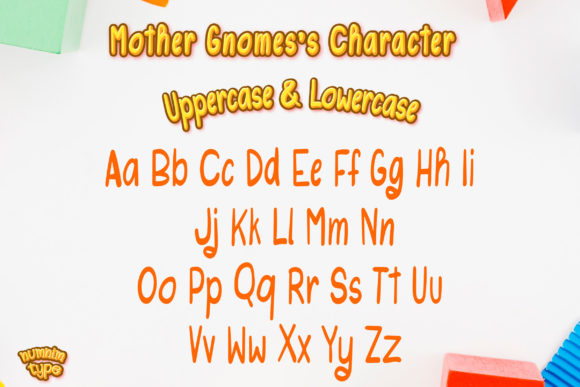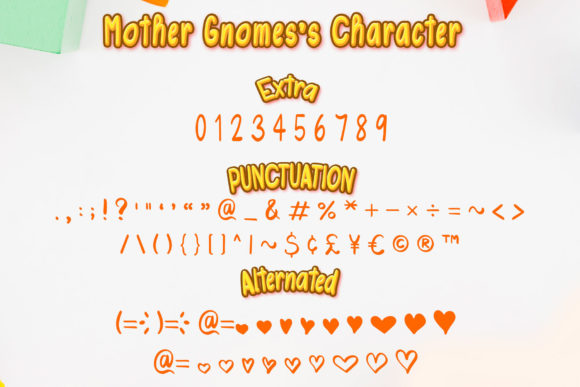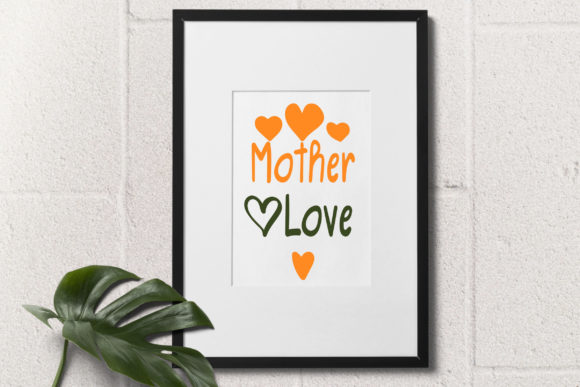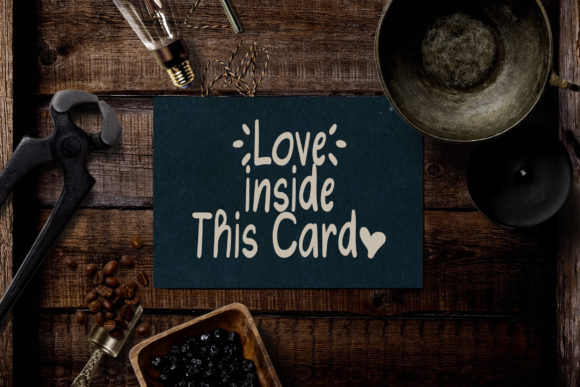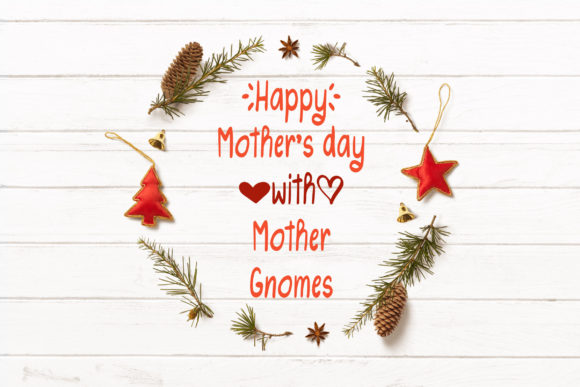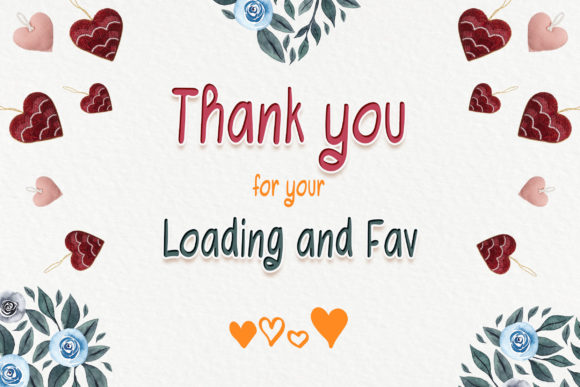
Introduction to Mother Gnomes Font
Who hasn’t had that moment when they stumble upon a design that just sparks their creativity? For me, it was the moment I laid eyes on the Mother Gnomes Font. Its playful, handwritten style and adorable doodle elements instantly captured my heart, and I knew I had to learn more about this delightful font.
Whether you’re a seasoned designer or just starting out, the Mother Gnomes Font is a valuable addition to your design arsenal. Its sweet, friendly style is sure to bring a smile to your face and inspire your next creative project.
Key Features of Mother Gnomes Font
- Designed with intricate details, featuring a whimsical and playful style reminiscent of forest dwellers.
- Perfect for use in various design contexts, including digital art, print materials, and web design.
- Features a unique and quirky character set, making it an excellent choice for designers seeking a distinctive look.
Honest Review: Mother Gnomes Font
I recently stumbled upon the Mother Gnomes Font while searching for a free design resource for my creative project. I was immediately drawn to its quirky, whimsical feel, perfect for adding a touch of personality to my design.
- ✨ The font’s high quality is evident in its crisp lines and smooth typography, making it a great choice for digital design.
- ✨ The font’s unique charm and playfulness make it an excellent addition to any project, from children’s books to branding materials.
- ⚠️ The font’s limited character set may not be suitable for complex or technical projects that require a wide range of special characters.
- ⚠️ Some users may find the font’s quirky feel too distracting or overwhelming, depending on their personal design style.
Overall, I’m impressed with the Mother Gnomes Font and its potential to elevate my creative project. Its high quality, transparent background, and unique charm make it a valuable design resource. While it may not be suitable for every project, I highly recommend it for designers looking for a playful and whimsical font.
Tips for Getting the Most Out of Mother Gnomes Font
Experiment with different font sizes and colors to create visual interest. Use the font in combination with other design elements to add depth and texture to your project.
Common Use Cases for Mother Gnomes Font
The Mother Gnomes Font is ideal for use in creative projects such as posters, flyers, and social media graphics. It’s also suitable for use in presentations and documents where a unique and playful font is needed.